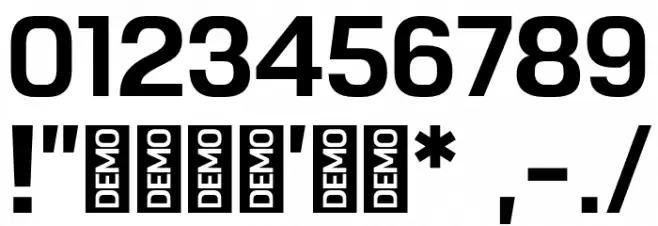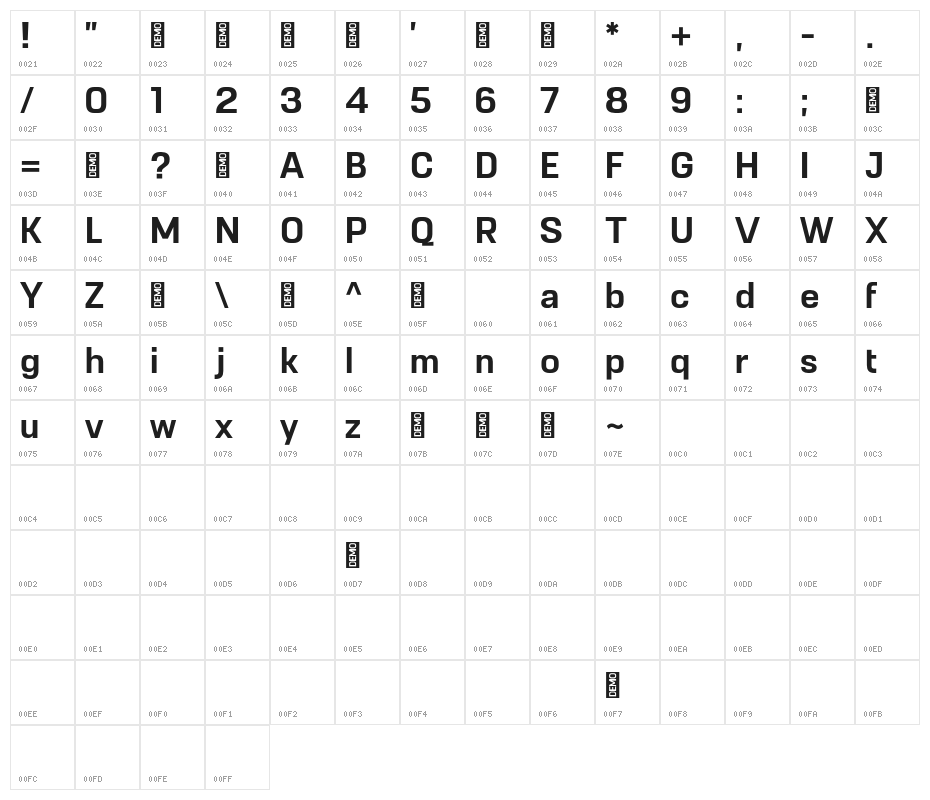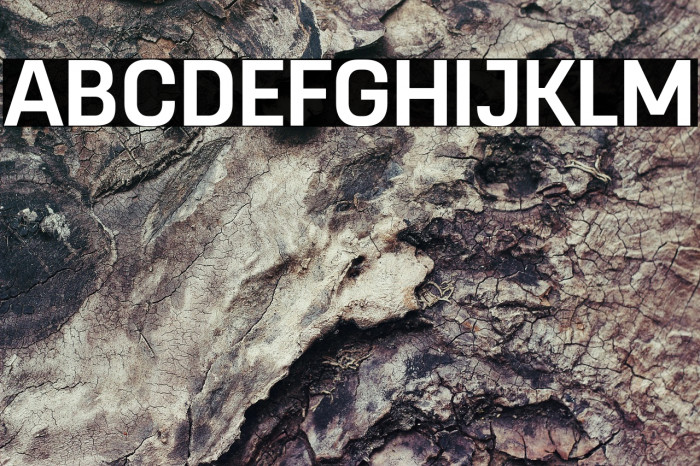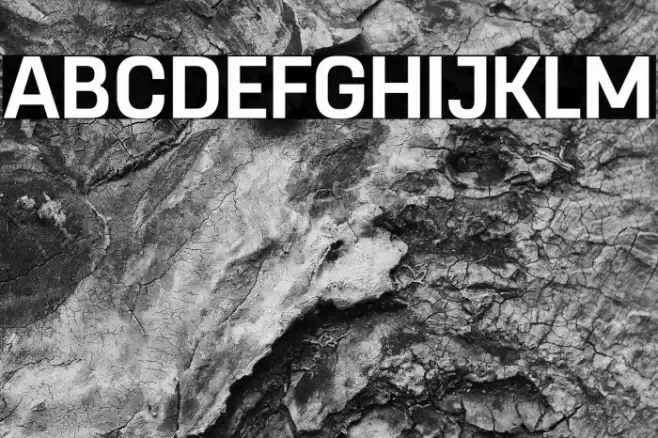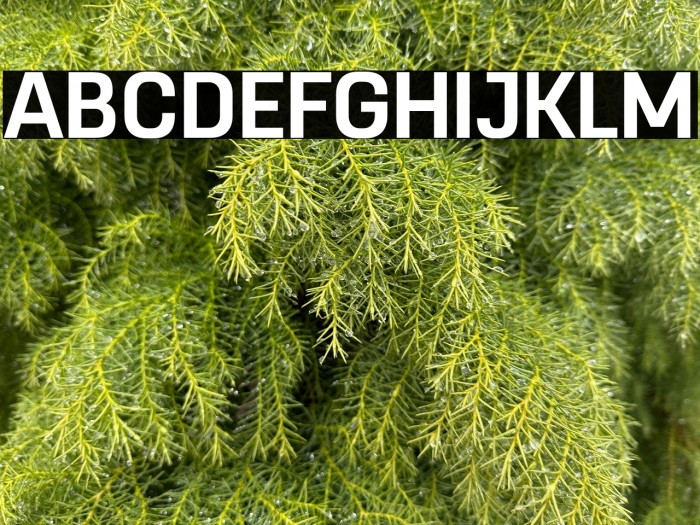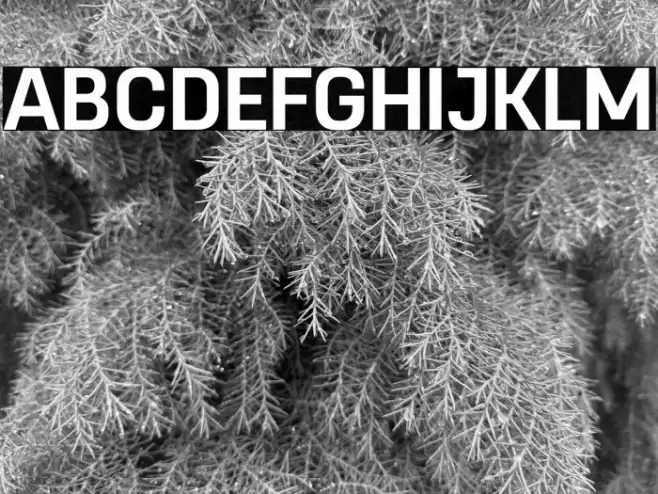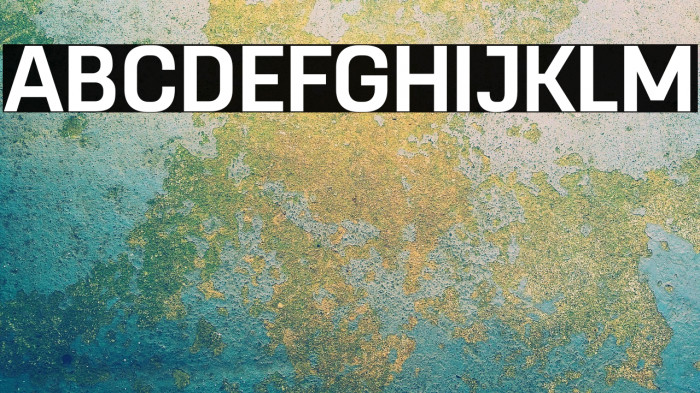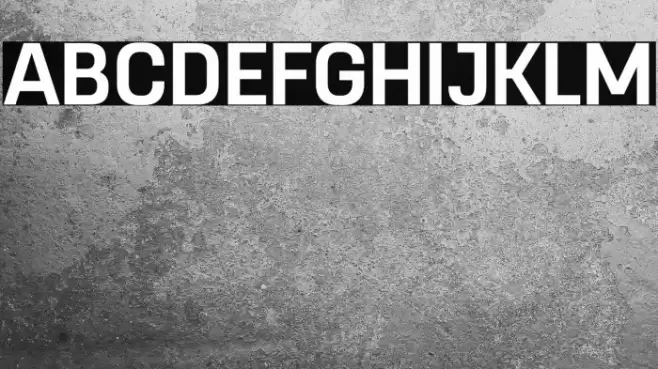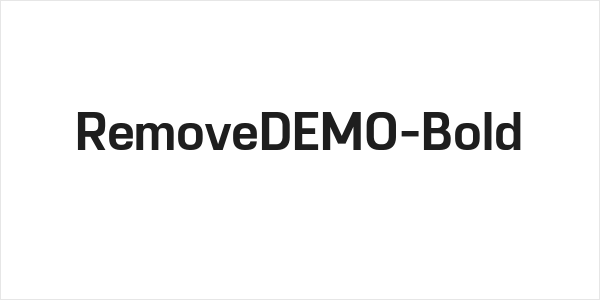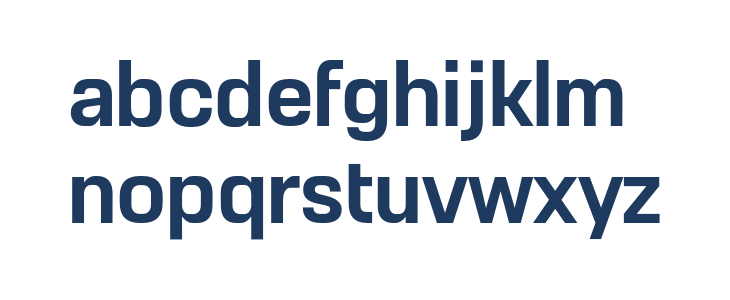
RemoveDEMO-Bold Font
RemoveDEMO-Bold Description
This font features a bold and modern sans-serif style with clean lines and a strong presence. The uppercase and lowercase letters are well-proportioned, offering a uniform appearance that enhances readability. The numerals are distinct and clear, making them suitable for various applications. The special characters are designed to complement the overall style, maintaining the bold and straightforward aesthetic. This font is versatile, suitable for both digital and print media, and can effectively convey a contemporary and professional look.